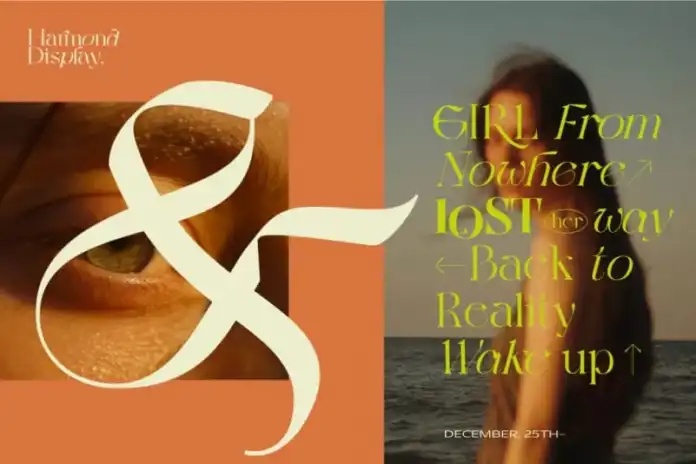
Harmond Serif is a bold and modern display typeface that balances elegance with strength. Designed to make an impact at large sizes while remaining highly readable in smaller text, its sharp triangular serifs and distinctive letterforms bring character to logos, editorial layouts, and branding.
With an elegant style, striking contrasts, and a refined structure, Harmond includes an extended Latin character set of 470 glyphs, supporting over 88 languages. It effortlessly blends classic sophistication with contemporary appeal, making it a standout choice for high-end design projects.
Harmond Serif Display Font Family